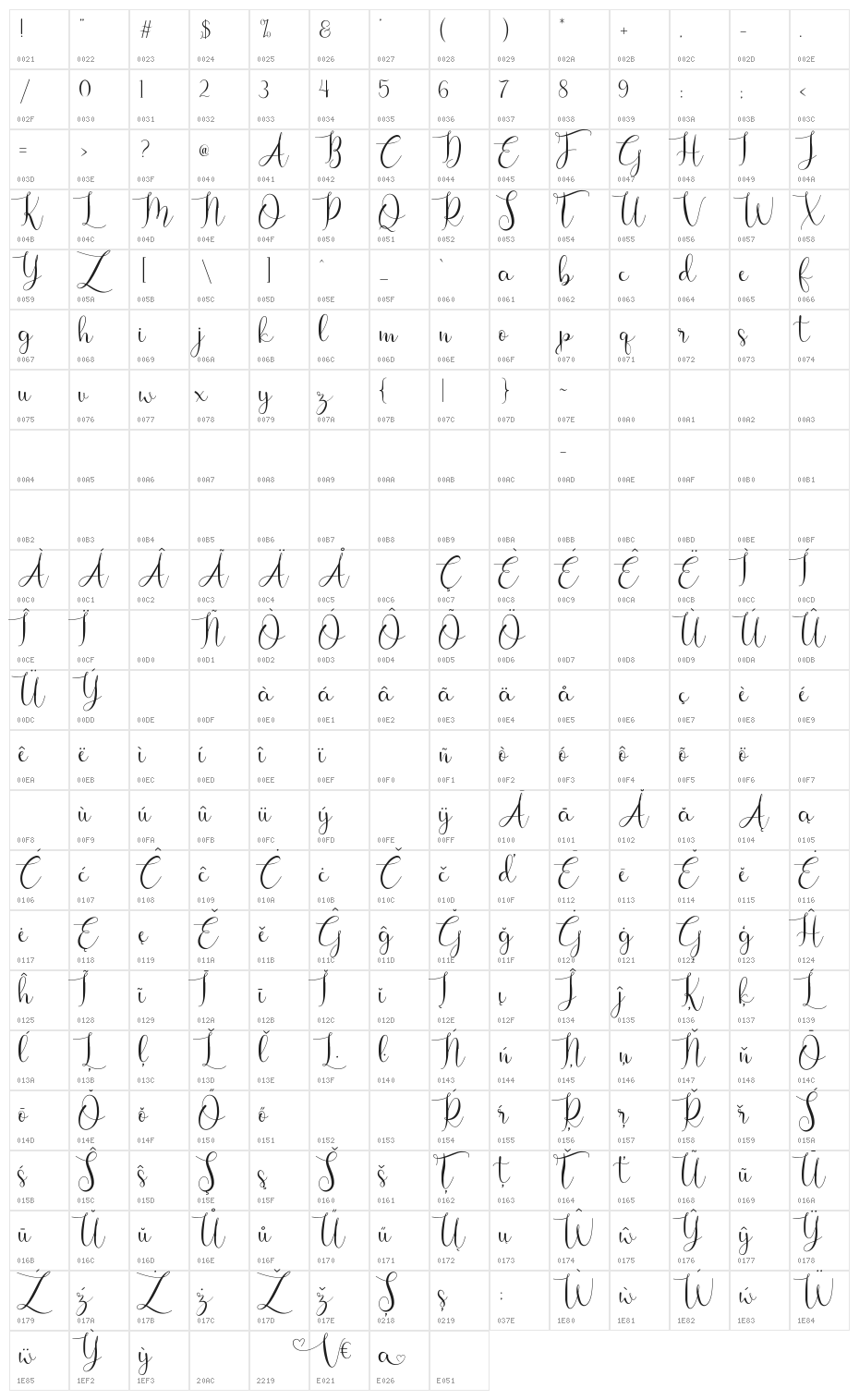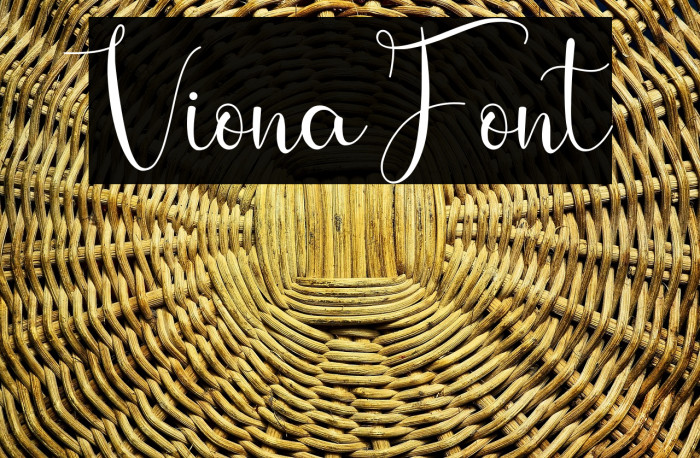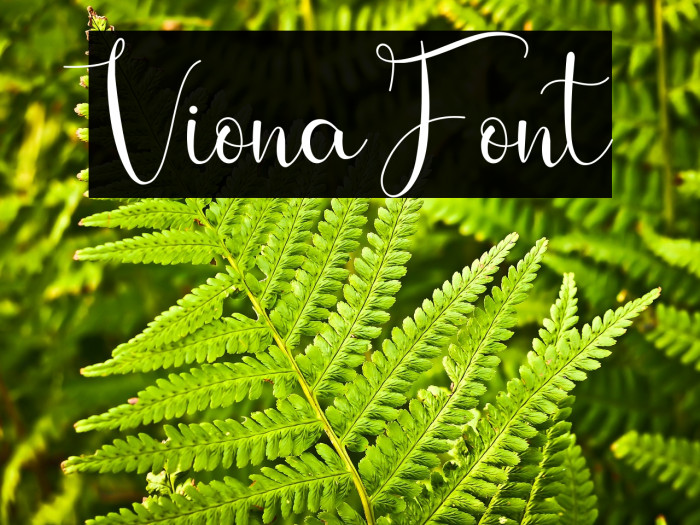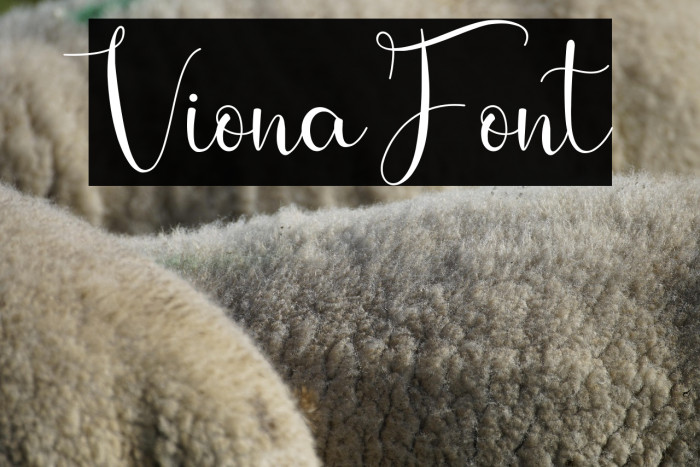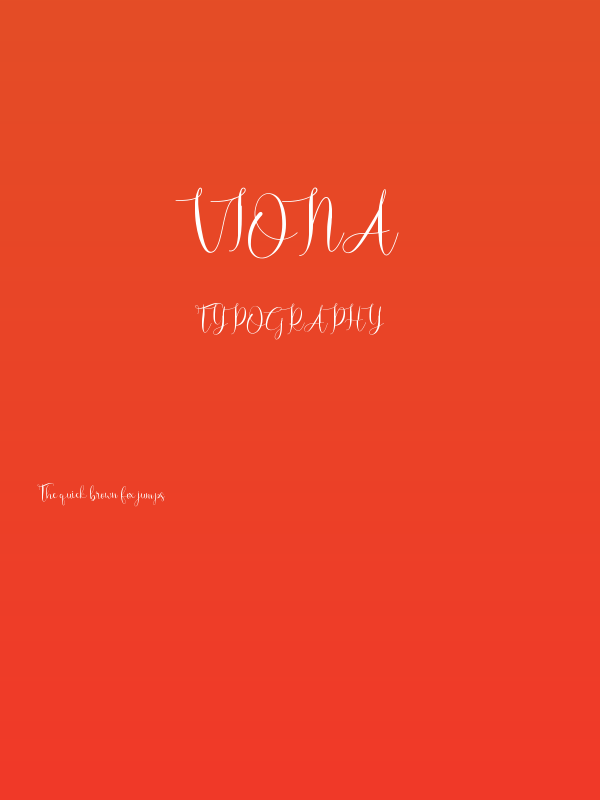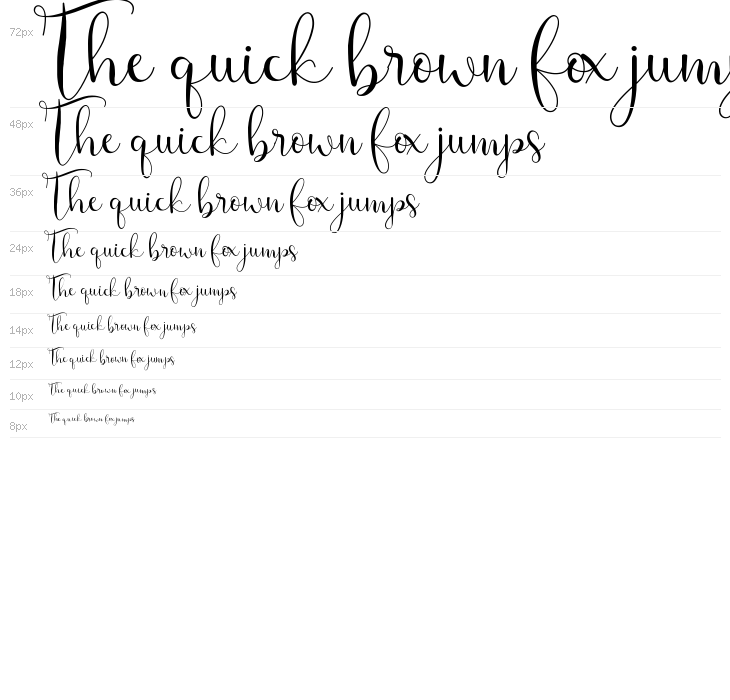
Viona Font
Viona Description
This font features an elegant and flowing script style, characterized by its graceful curves and loops. The uppercase letters are tall and slender, with a distinct flair that adds a touch of sophistication. The lowercase letters maintain a consistent flow, enhancing the font's overall harmony and balance. Numbers are designed with a similar elegance, ensuring readability while maintaining the font's artistic style. Special characters are thoughtfully integrated, complementing the font's aesthetic. This font is ideal for projects that require a personal and artistic touch, such as invitations, greeting cards, or branding materials.
Overall StyleElegant
Use CaseLogos, Invitations, Artistic projects
Proposed ProjectsIdeal for wedding invitations, greeting cards, branding, and artistic projects.